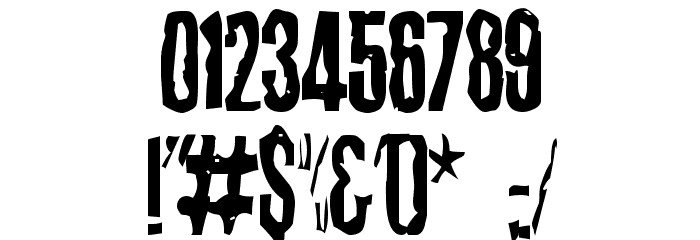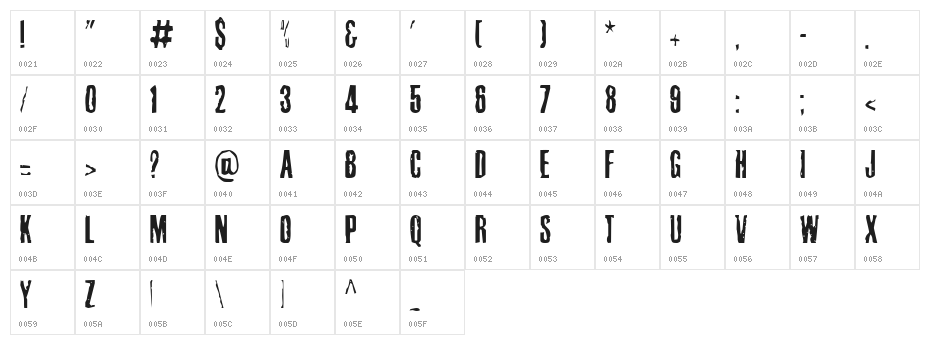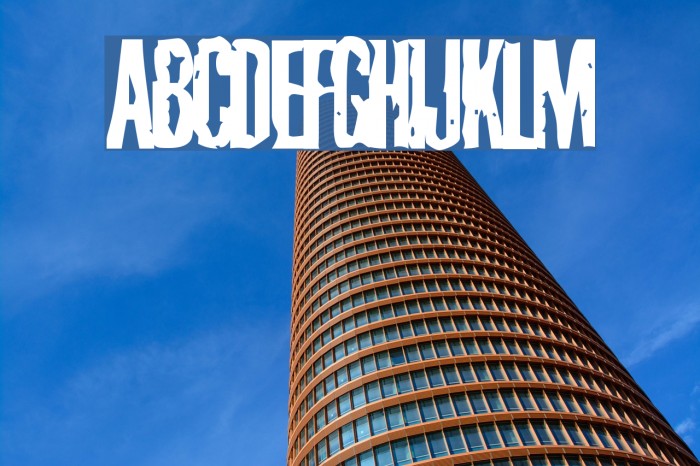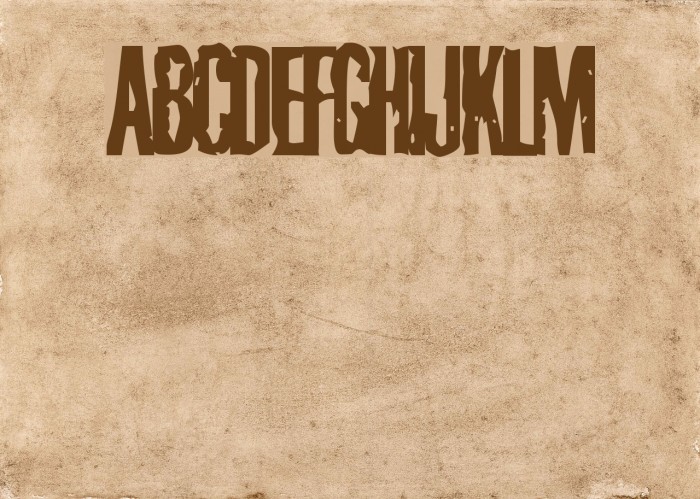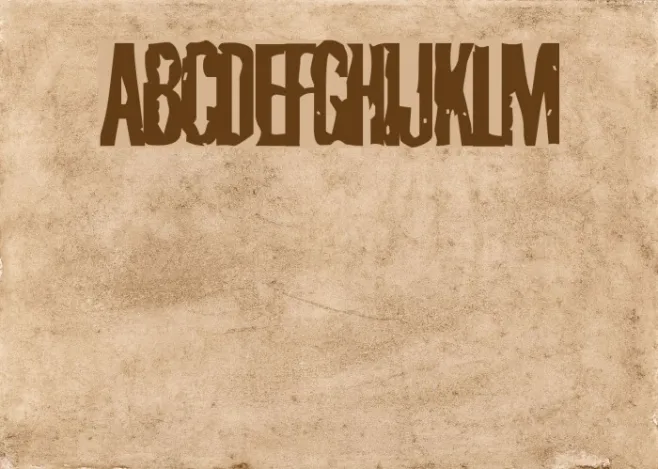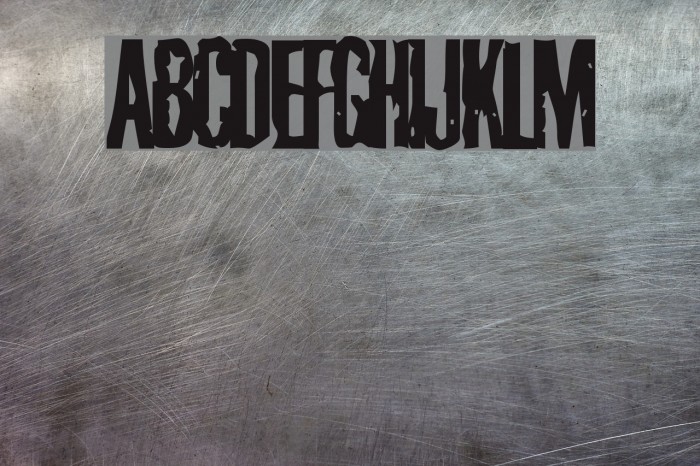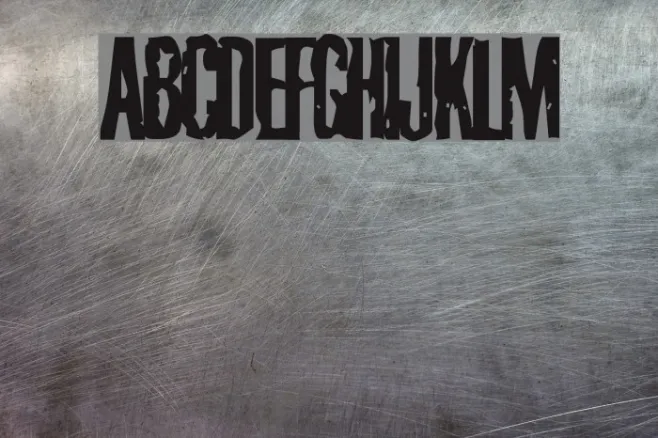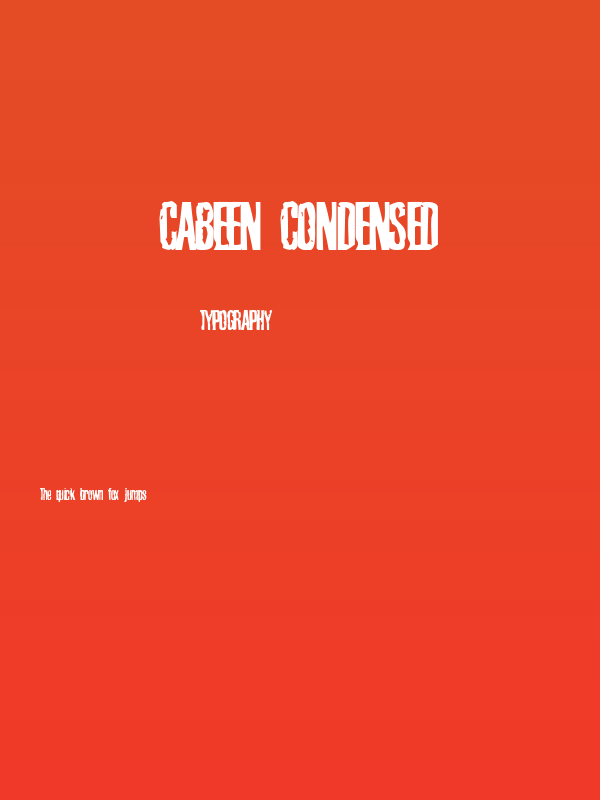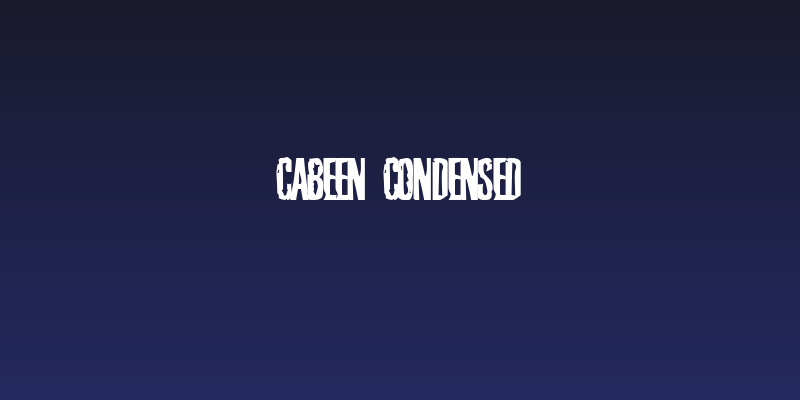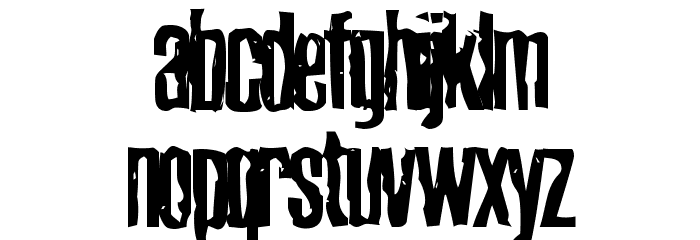
Cabeen Condensed Font
Cabeen Condensed Description
This font features a bold and condensed style with a distinctly rugged and distressed appearance. The characters are heavily stylized, with irregular edges and a hand-crafted feel that gives them a unique, artistic look. The uppercase and lowercase letters maintain a consistent height, contributing to the font's compact and dense appearance. The numbers and special characters follow the same design principles, ensuring uniformity across all glyphs. This font's striking and unconventional design makes it stand out, ideal for projects that require a bold statement.
| Proposed Projects | Ideal for posters, album covers, branding for edgy or alternative products, and any design needing a bold, artistic touch. |